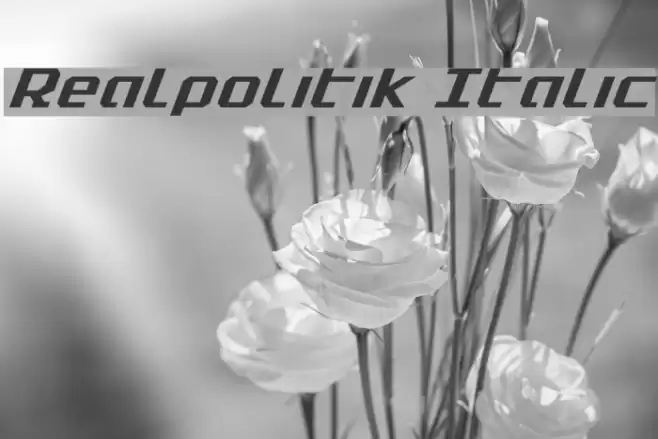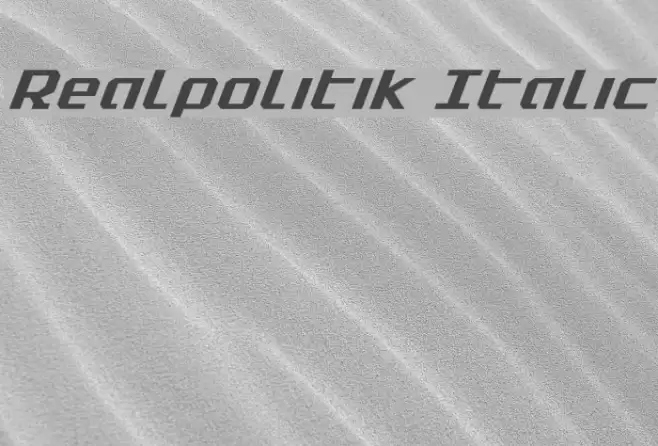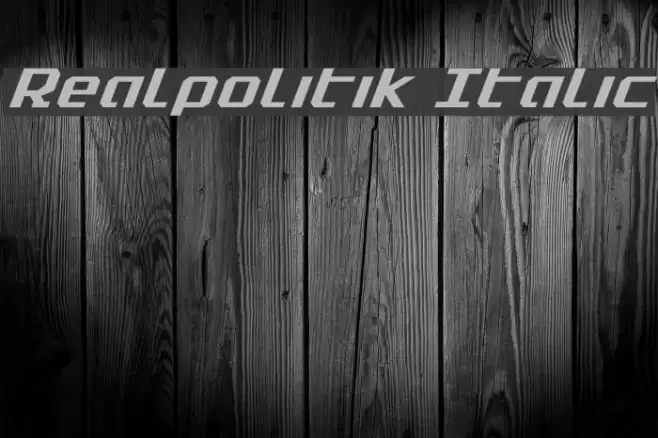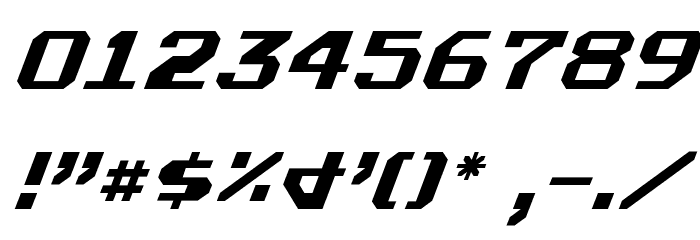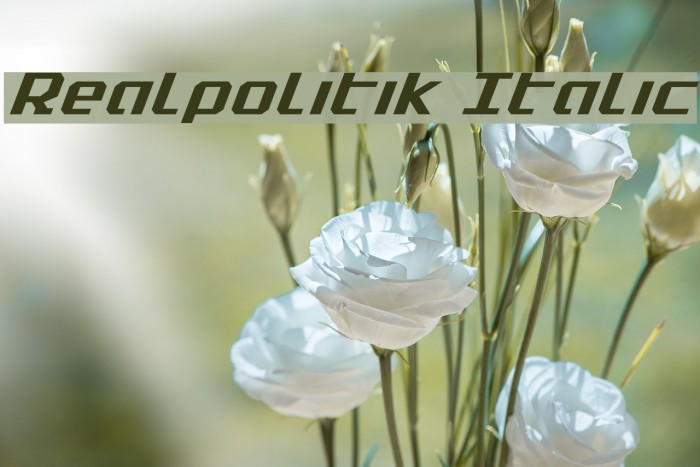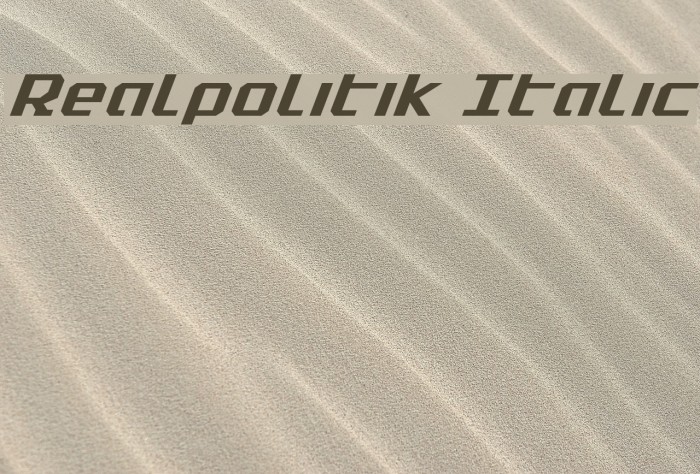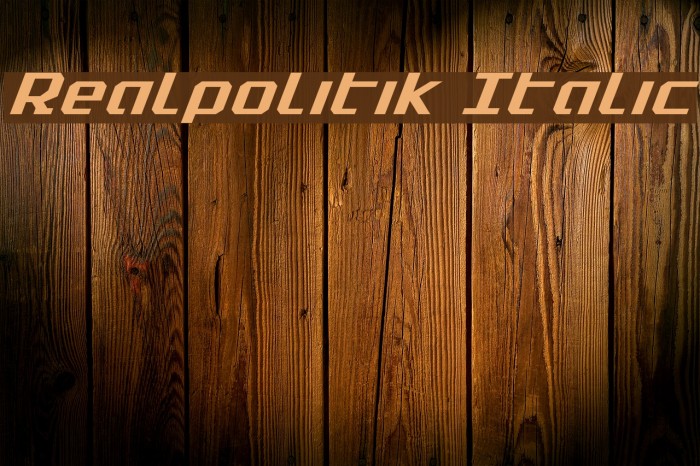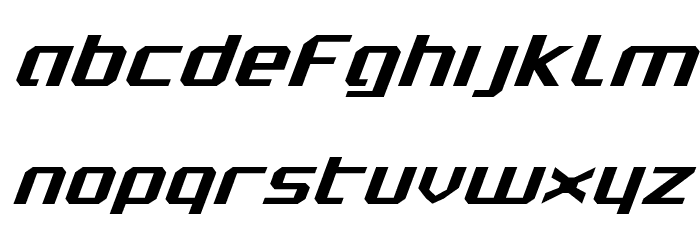
Realpolitik Italic Font
Realpolitik Italic Description
This font features a dynamic and angular design, characterized by its italicized, forward-leaning stance. The letters are bold and geometric, with sharp edges and a futuristic feel. The uppercase and lowercase characters maintain a consistent style, with a slight slant that adds a sense of motion. Numbers and special characters follow the same angular theme, making the font suitable for modern and tech-oriented designs. The overall appearance is sleek and assertive, ideal for projects that require a strong visual impact.
A bold, italicized font with angular, geometric shapes and a futuristic style from Uncategorized fonts.
- Proposed Projects: Ideal for tech branding, futuristic posters, video game titles, and modern advertising.